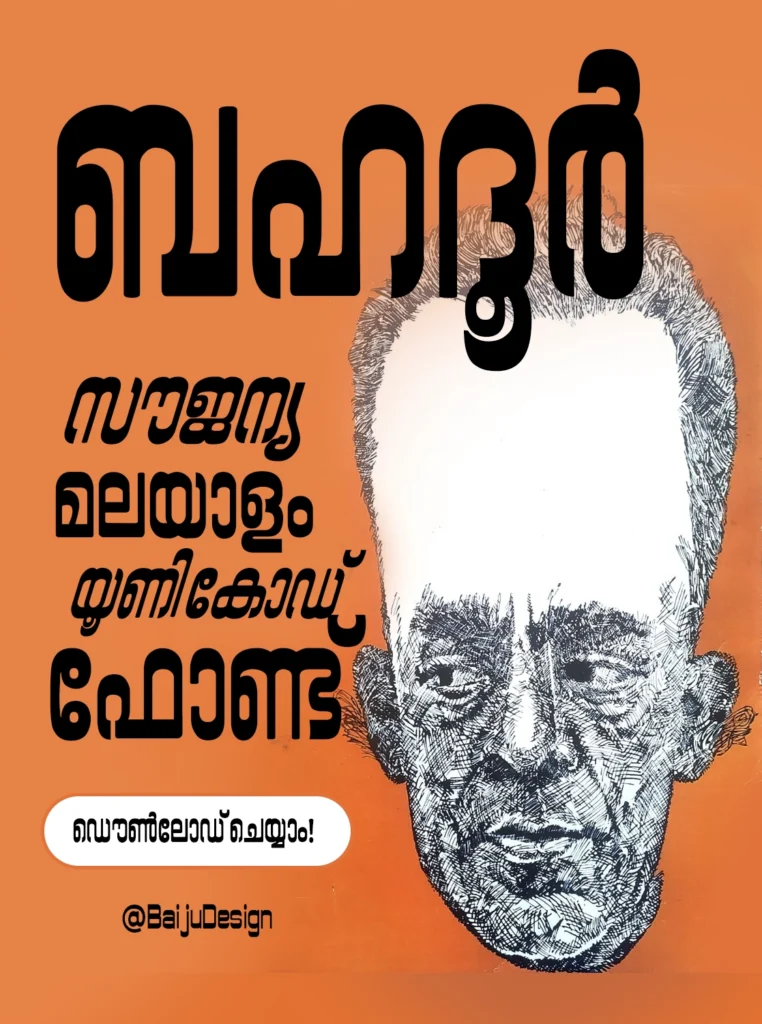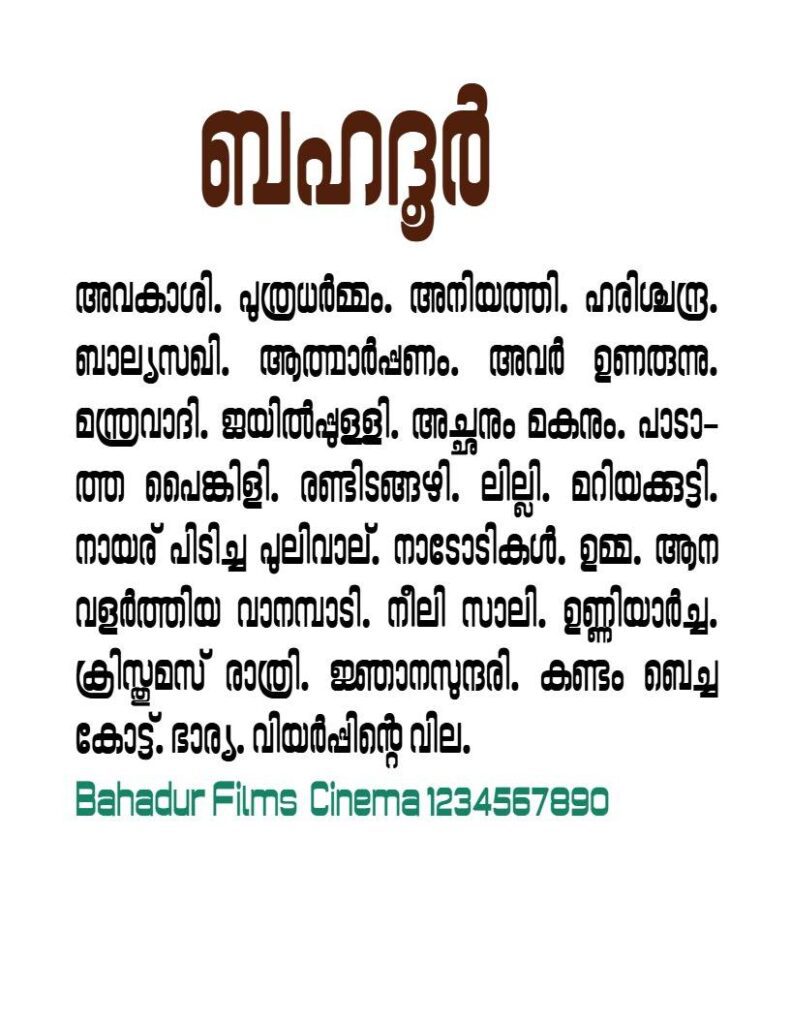
RIT Bahadur — traditional orthography OpenType Unicode font for Malayalam
Bahadur was a celebrated comedy actor in Malayalam cinema, with a remarkable career that spanned four decades—from 1954 until his passing away in 2000. Over this time, he appeared in nearly 600 films, earning the admiration of audiences and peers alike.
In 1977, to mark the 25th anniversary of his acting career and the milestone of completing 400 films, Bahadur was honored by his friends and the people of his hometown, Kodungallur. This heartfelt gathering became a historic event in the annals of the Malayalam film industry, where many speakers paid tribute to his immense talent, enduring legacy, and extraordinary friendship.
The following year, in 1978, a commemorative souvenir was published, capturing the essence of the event through the speeches and reflections shared. The cover of this special publication was designed by the renowned artist and illustrator Namboodiri. His distinctive title design for the souvenir later served as the primary inspiration for the creation of the Bahadur font.
The Bahadur font draws its foundational geometry from the RIT Uroob typeface and stands out as an ornamental font ideal for use in book titles and signboards. It is a tribute not only to Bahadur’s vibrant personality and legacy but also to the artistic spirit of Namboodiri.
This font is an offspring of Rachana movement under the leadership of R. Chitrajakumar who founded Rachana Akshara Vedi in 1999. He devised the ‘definitive character set’ of Malayalam based on traditional script which is the base of Rachana as well as this font.
The naming convention of glyphs (k1 for ക, k2 for ഖ etc.) is devised by K.H. Hussain in 2005 to form a mnemonic way to represent conjuncts and its components and to facilitate the coding of glyph substitution of conjuncts.